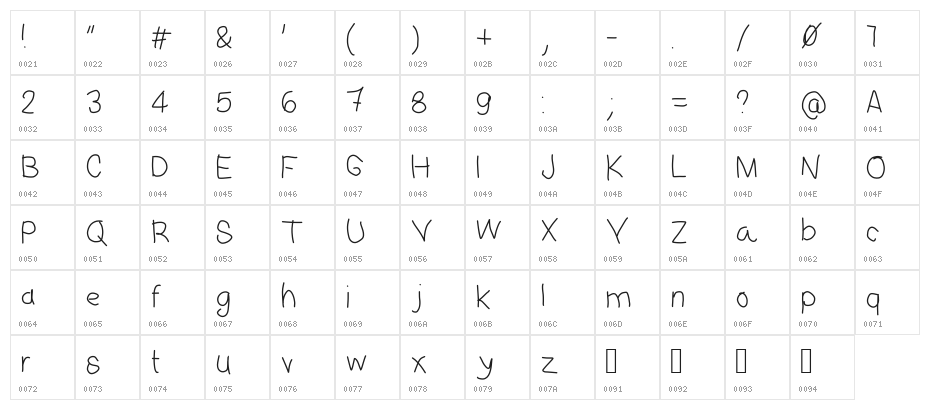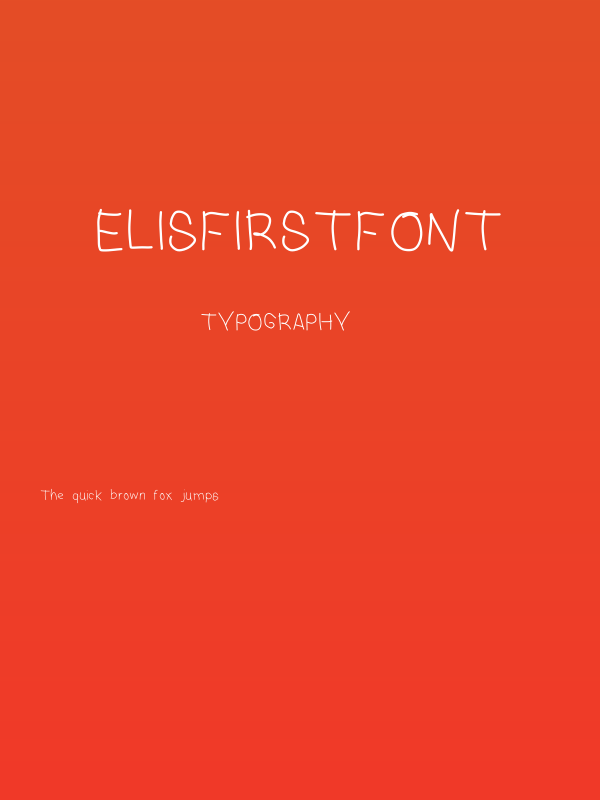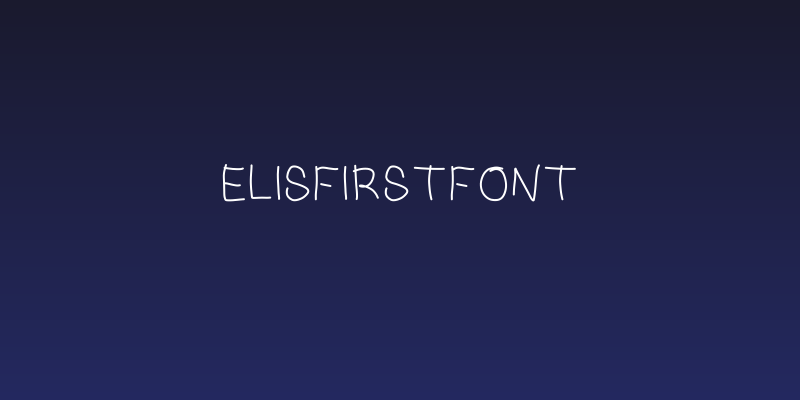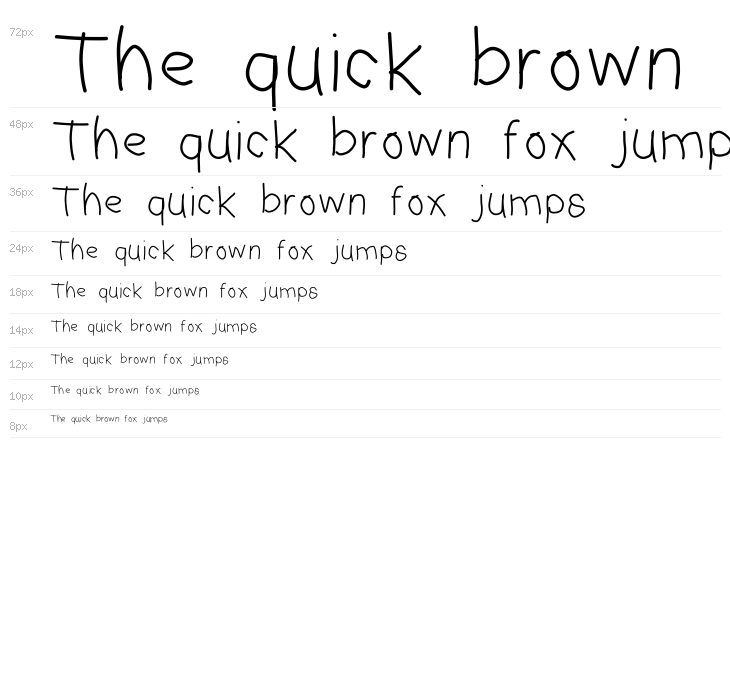
elisfirstfont Font
elisfirstfont Description
This font exhibits a playful and casual handwritten style, characterized by its irregular and organic letterforms. The strokes are uneven, giving it a personal and informal touch, reminiscent of a child's handwriting or a casual note. The uppercase and lowercase letters maintain a consistent style, with rounded edges and a slightly tilted appearance, adding to its whimsical charm. The numerals and special characters follow the same playful aesthetic, ensuring a cohesive look across all glyphs. This font is ideal for projects that require a friendly and approachable feel, such as children's books, greeting cards, or informal invitations.
Overall StyleCasual, Playful
Use CaseHeadlines, Informal text, Creative projects
Proposed ProjectsChildren's books, greeting cards, informal invitations, personal notes.